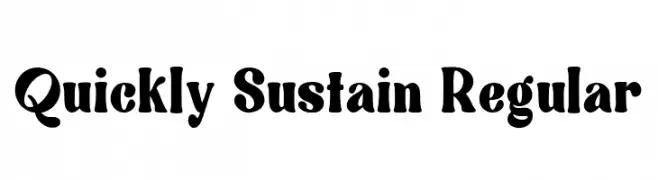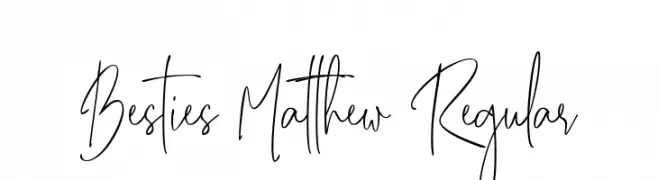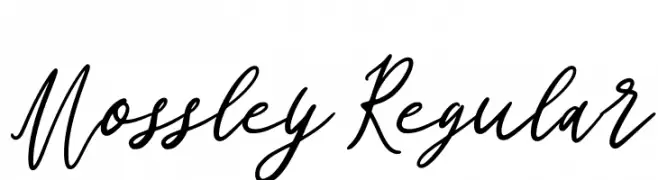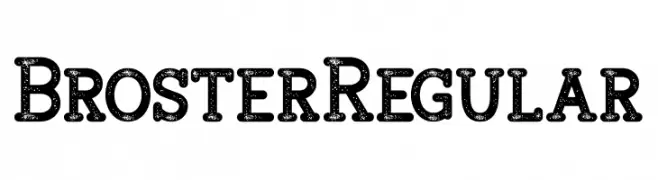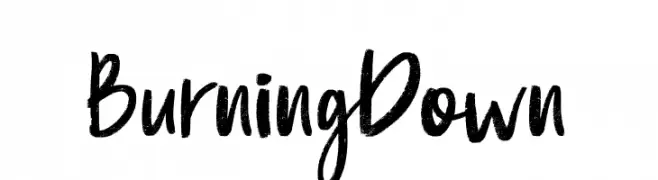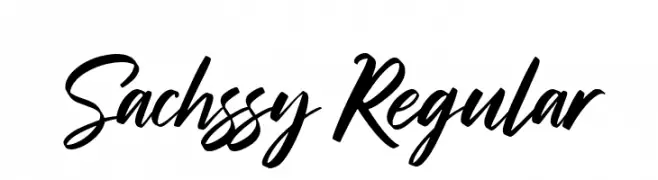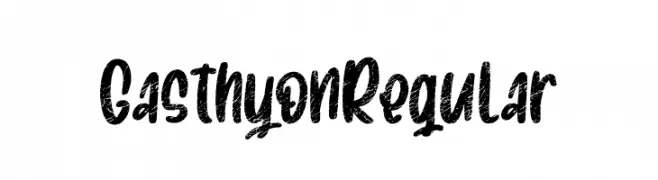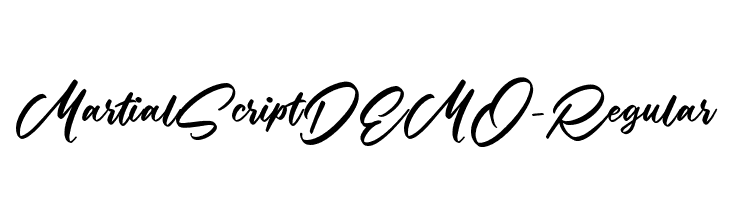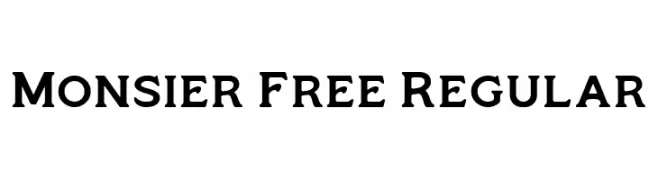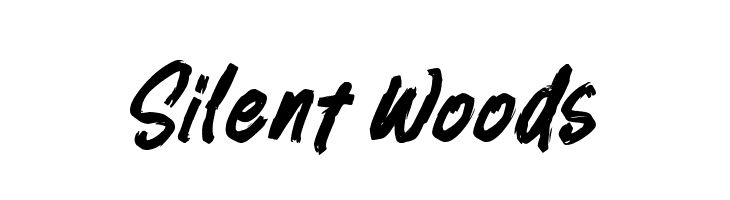
A bold, vintage-style font with rounded, condensed characters.
A cursive, handwritten font with a smooth, flowing style.
A modern, elegant handwritten font with flowing, elongated characters.
A lively, cursive font with fluid strokes and a handwritten feel.
A bold, textured font with a vintage, distressed style.
A bold, textured, hand-painted style font with an expressive and dynamic appearance.
A bold and fluid script font with interconnected letters and a modern flair.
A playful, handwritten-style font with consistent strokes and a casual feel.
A bold, textured font with a vintage, hand-painted look.
A lively, handwritten font with expressive and fluid strokes.